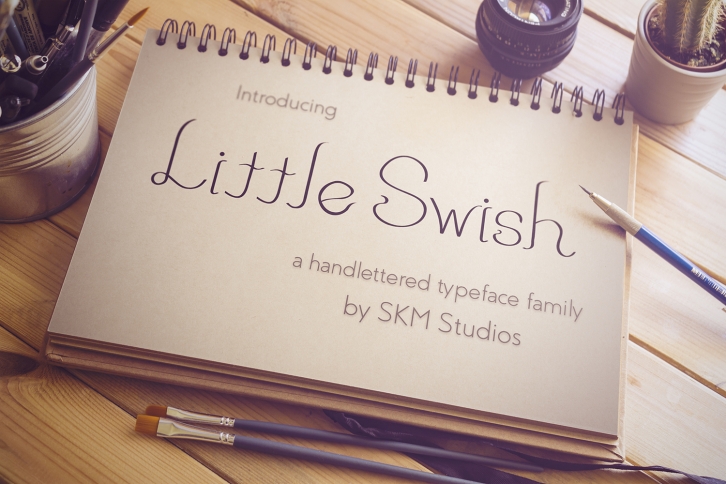
Little Swish Font Family Download
Little Swish Family is a great font that was designed by SKM Studios. Imagine the amount of combinations you can create using this font! The archive is 12.91 MB and it was released on June 2, 2017. Little Swish Family looks beautiful on wedding invitations, greeting cards, logos, posters, labels, t-shirt designs, logos, business cards and is perfect for use in ink or watercolor works, fashion, magazines, packaging and food menus, children's books and more!